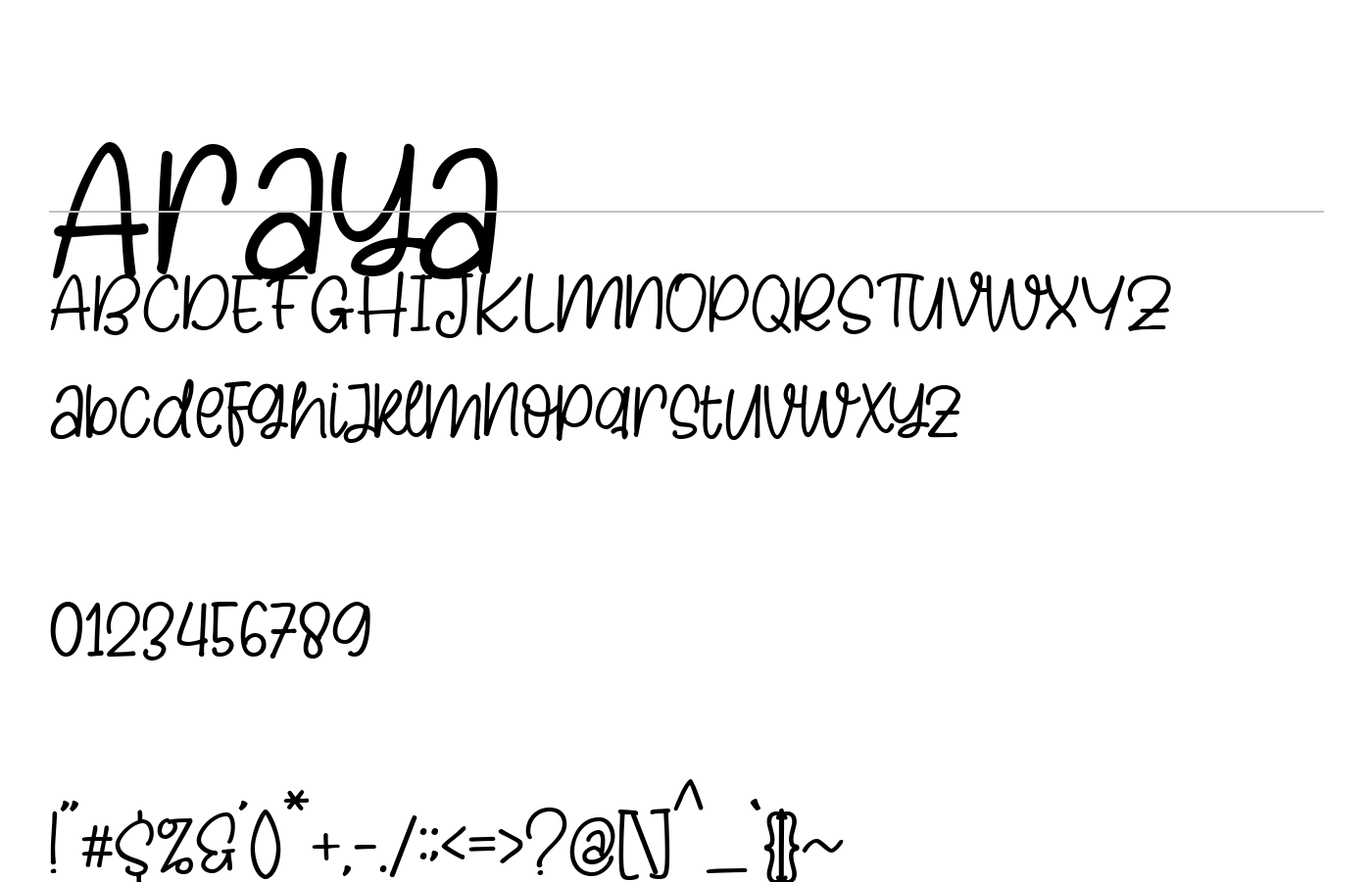
Araya is a playful and informal handwritten sans serif font with a light weight and slightly condensed style. Its lively, casual letterforms feature irregular strokes and a friendly feel, making it perfect for creative projects, invitations, or brands seeking a personal touch. This font works well in both headlines and short texts where a warm and approachable vibe is desired.
Araya Font
About Araya Font